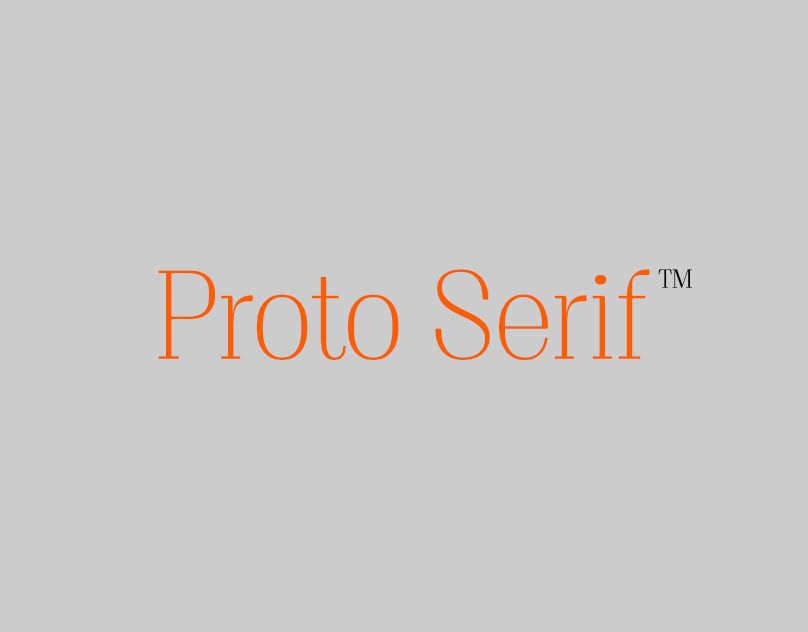
Proto Serif is a revised version of a typeface that was used in a Czech newspaper back in the 1990s.
It is a Didon hight contrast serif typeface with economical proportions and distinct vertical stress. It has thin serifs and distinctive terminals, and relatively large x-height which is great for display use and headlines. It consists of five weights from light to bold and italic, and supports the major western languages.
Proto Serif Typeface